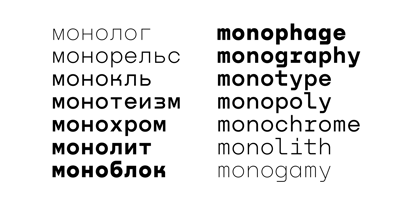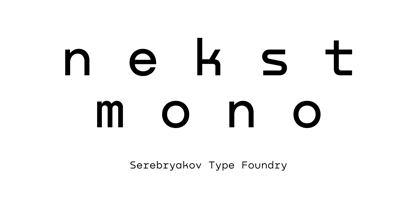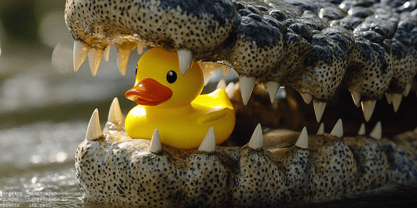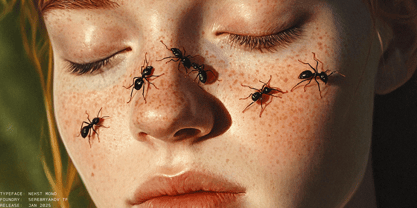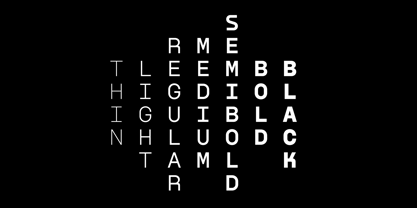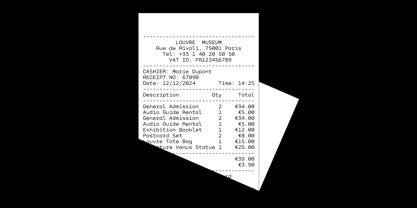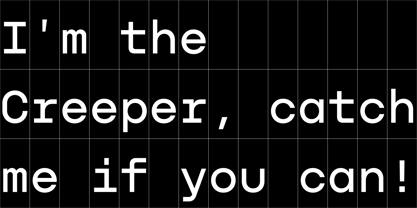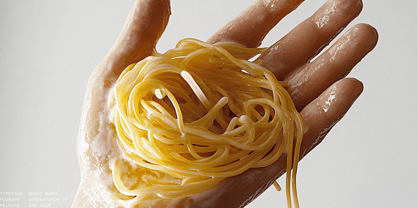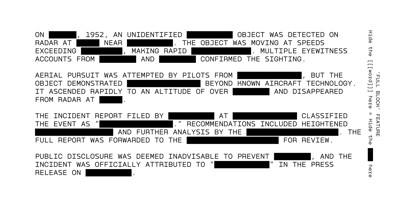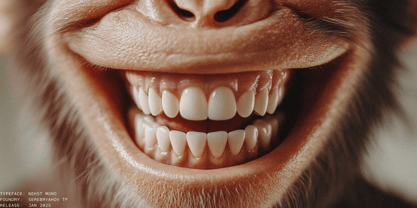
Nekst Mono
Nekst Mono is a monospaced extension of the original Nekst typeface, where strict structure seamlessly blends with an unexpected character. It’s designed for creatives who value precision but also seek a fresh and expressive approach. Its geometrically precise forms convey a sense of order and stability, while subtle details introduce an element of surprise, setting it apart from other monospaced fonts.
This typeface catches the eye with its unique combination of systematization and emotion. It’s perfect for projects where functionality is just as important as individuality. Nekst Mono builds upon the foundation of Nekst, bringing its signature style into the world of monospaced typography, turning precision into art and helping designers tell their stories through type.